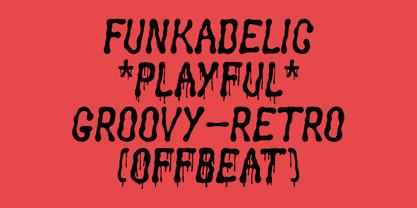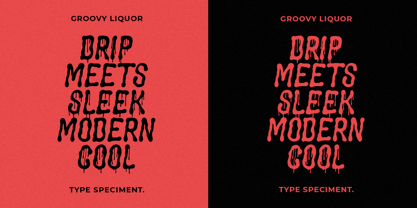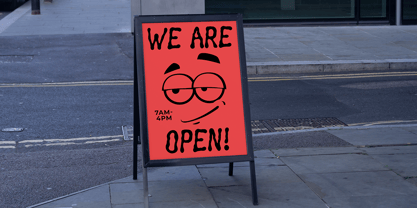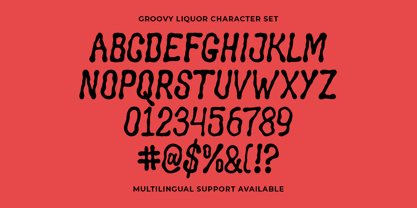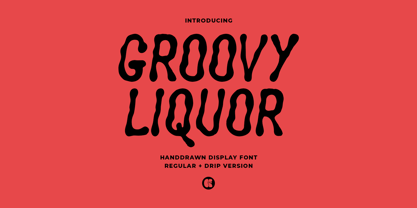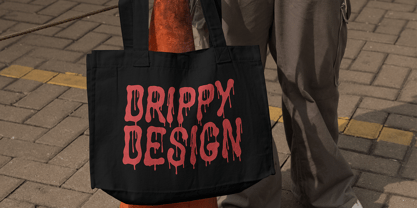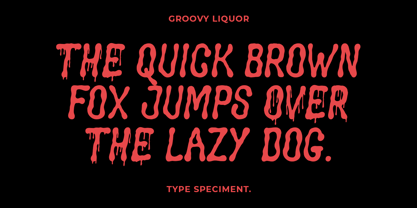
Groovy Liquor
by Groovy Font
The Groovy Liquor Font Family was designed by Ahmad Ginanjar Riyadi and published by Groovy Font. Groovy Liquor contains 2 styles and family package options. More about this family
Groovy Liquor is a unique hand-drawn display font that captures the essence of flowing waves with its gentle curves and fluid lines.
This font comes in two types: regular and drip, offering versatility in creating visually appealing designs.
Whether you are looking to add a touch of whimsy or a hint of creativity to your projects, Groovy Liquor is the perfect choice for a playful and artistic aesthetic.